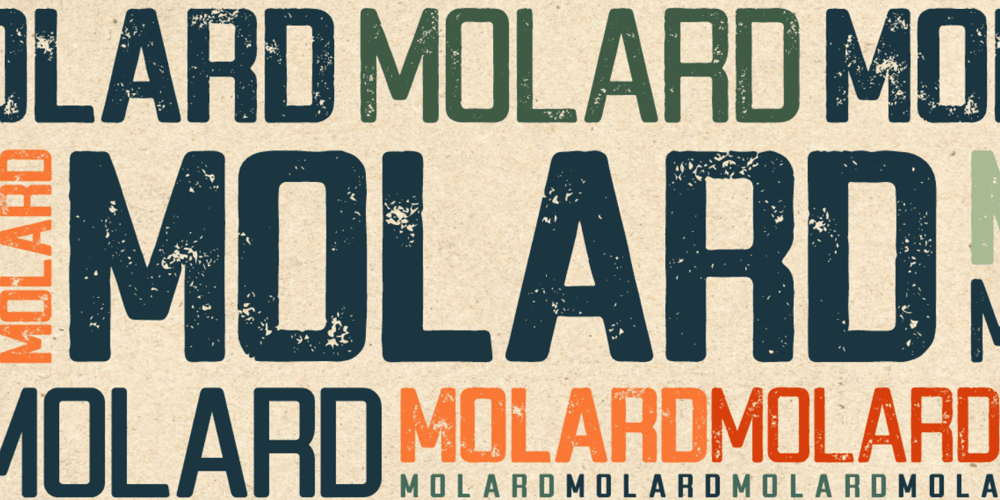
Molard Two Font Family was designed by Putra Novembria Candra Kusuma and published by Putracetol. Molard Two contains 8 styles and family package options. Molard – Modern Various Font. This sans-serif typeface offers a diverse range of styles, featuring two distinct weights and versions – clean and textured. With a selection of three texture levels, Molard presents a total of eight fonts in its collection. Its contemporary and robust aesthetic adds an assertive touch to your projects. Perfectly suited for logo creation, branding, labels, quotes, printing, magazines, posters, film titles, and more, Molard empowers your creativity to flourish.